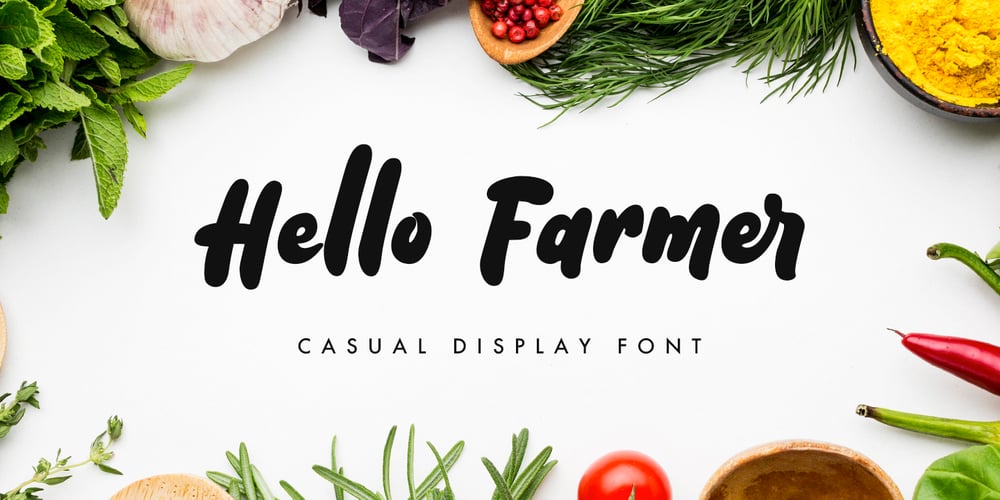
Hello Farmer Font Family was designed by Nur Faidin and published by Nurf Designs. Hello Farmer contains 1 styles and family package options. Hello Farmer is a handwritten font in Cute, Bold and Child style. It is suitable for promotional designs, labels, packaging, branding and logotype.